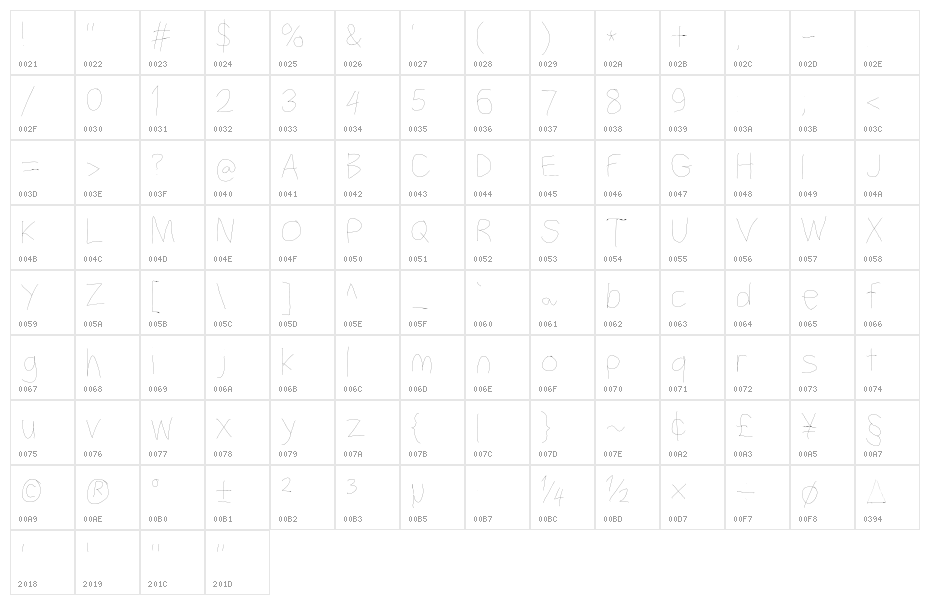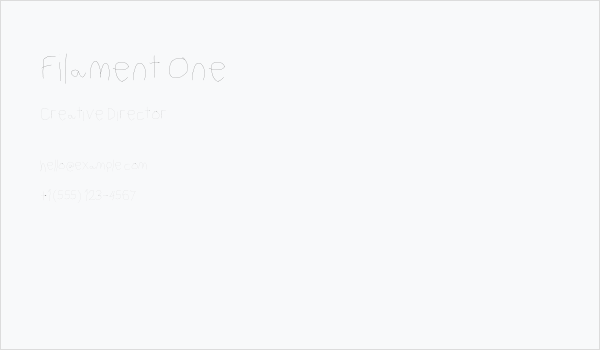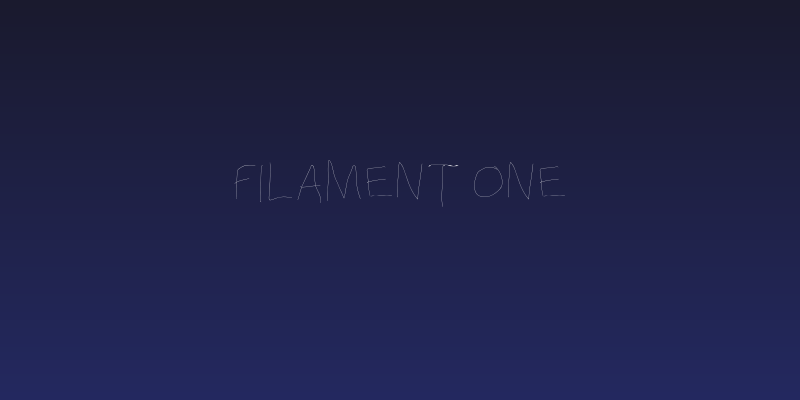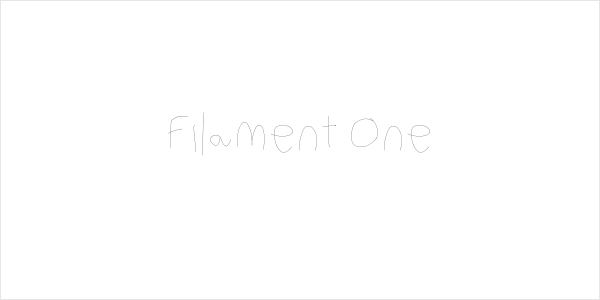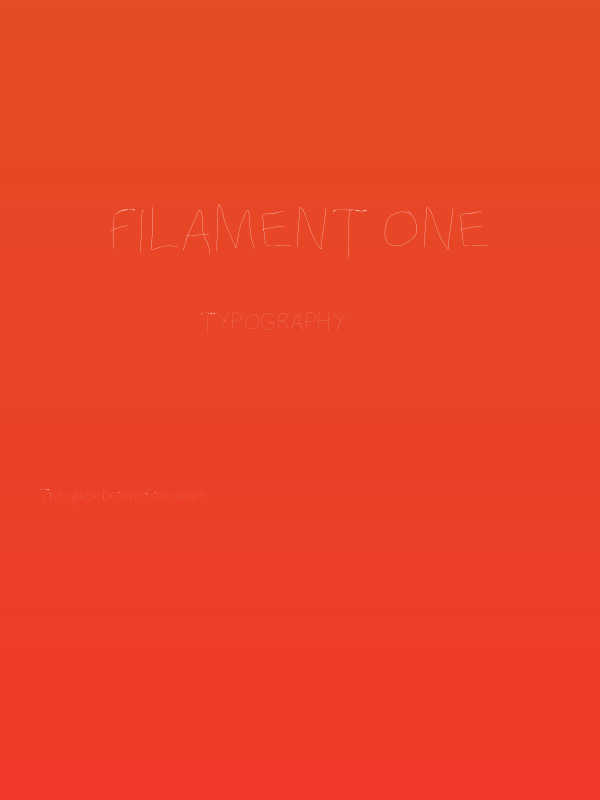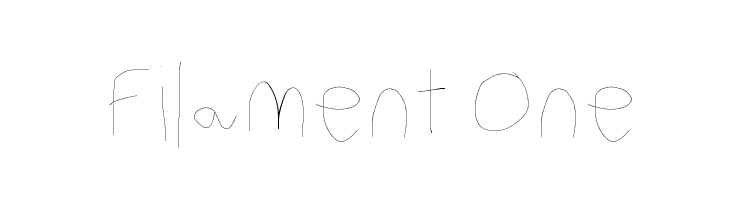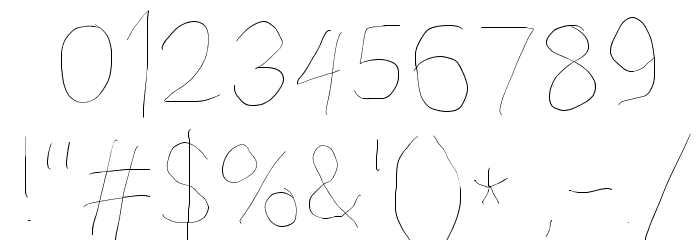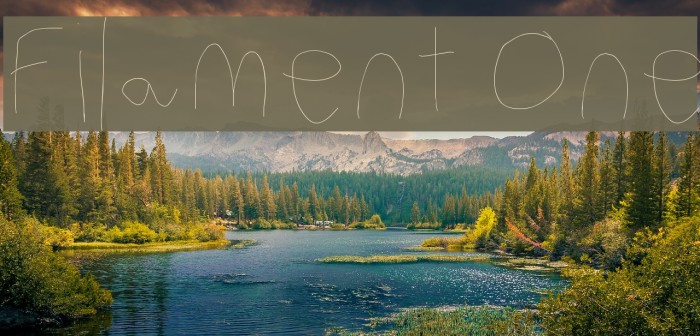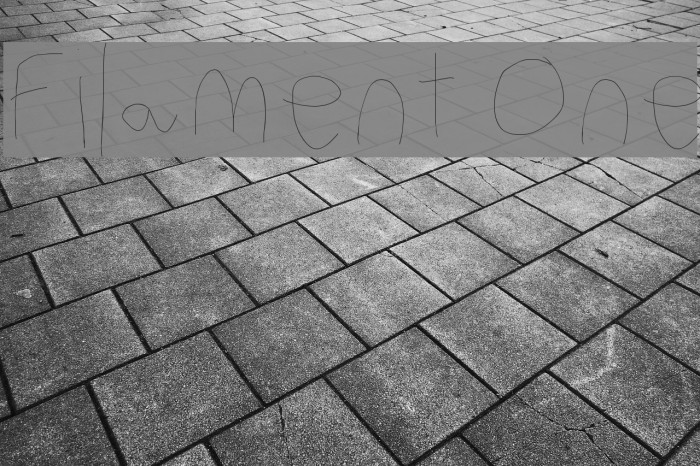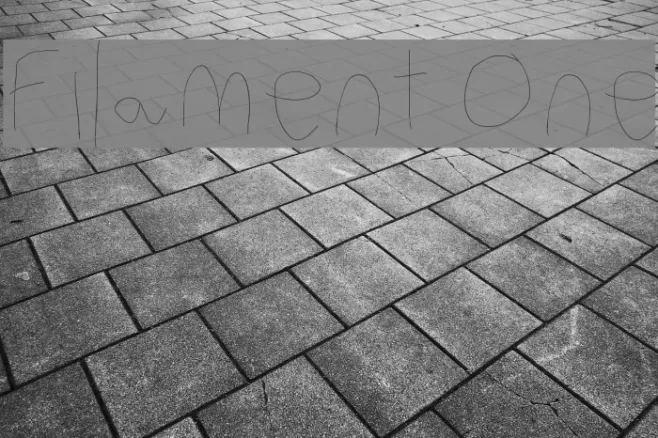
Filament One Font
Filament One Description
This font features a delicate, hand-drawn style with thin, slightly irregular strokes that give it a whimsical and organic feel. The characters are airy and spacious, with a light touch that suggests a casual, informal tone. The uppercase letters maintain a consistent height, while the lowercase letters exhibit a playful variation in size and form. The numerals are simple and straightforward, complementing the overall lightness of the design. Special characters are included, maintaining the same thin and airy quality. This font is ideal for projects that require a personal, handwritten touch.
| Use Case | Creative projects, personal notes, invitations |
| Proposed Projects | Ideal for greeting cards, personal notes, invitations, and creative projects that benefit from a handwritten aesthetic. |